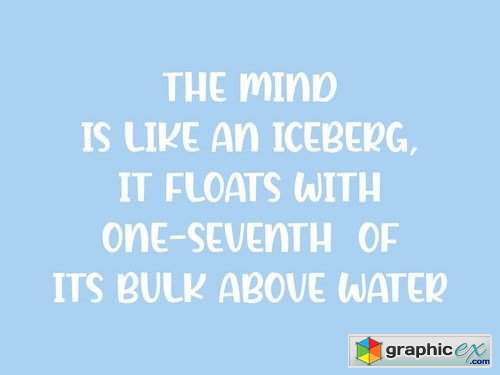
Icebold Dsiplay
ICEBOLD is perfect for product packaging, branding project, magazine, social media, weddings, or just used to express words above the background.